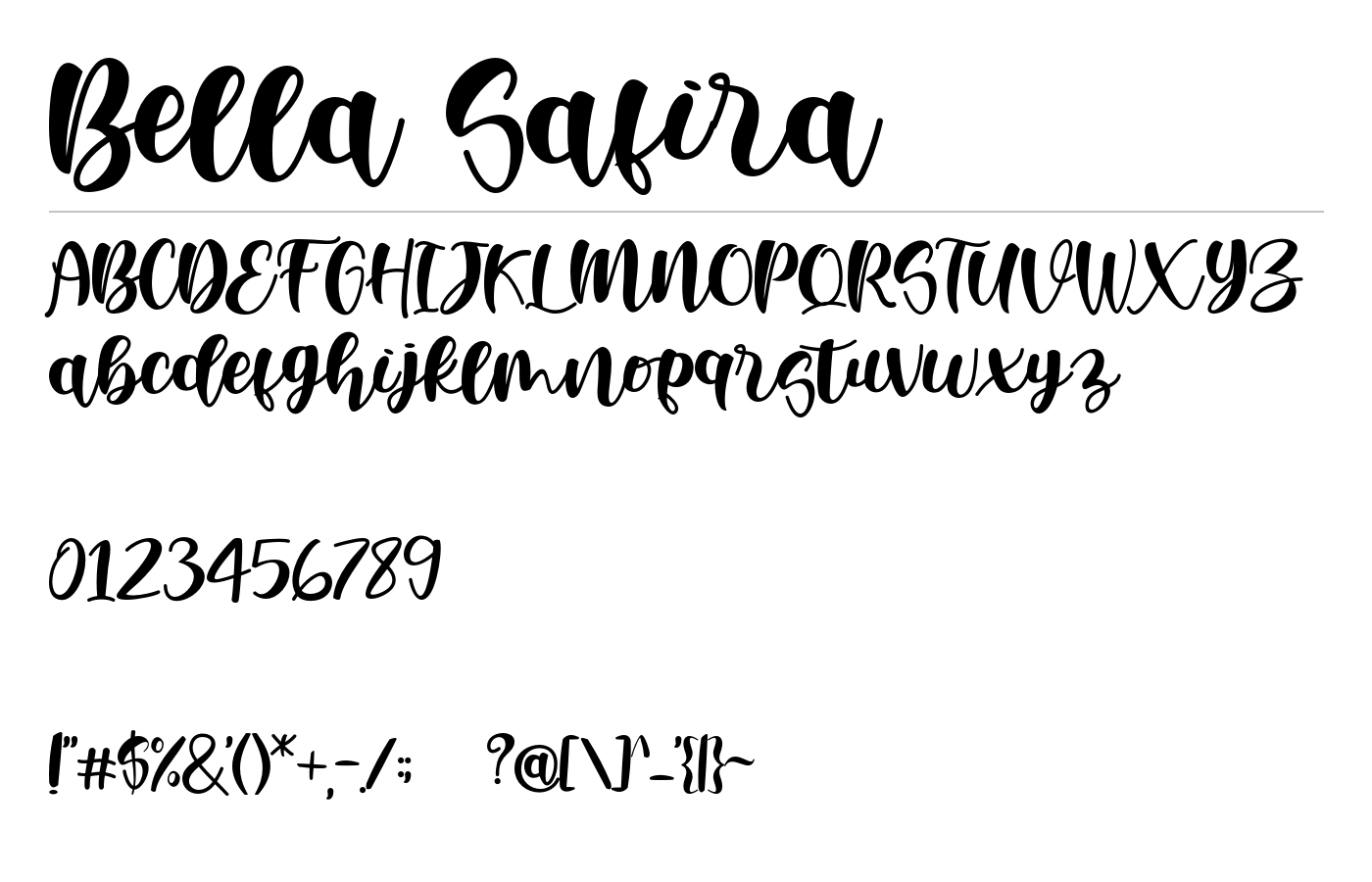
Bella Safira is a lively and elegant script font characterized by its smooth, flowing strokes and moderate contrast that create a charming handwritten feel. Its bold yet graceful letterforms with playful curves make it perfect for feminine branding, invites, and creative projects that seek a warm, personal touch. This font works beautifully for logos, social media graphics, and packaging where a stylish and approachable vibe is desired.
Bella Safira Font
About Bella Safira Font
| Designer | Sudarman |